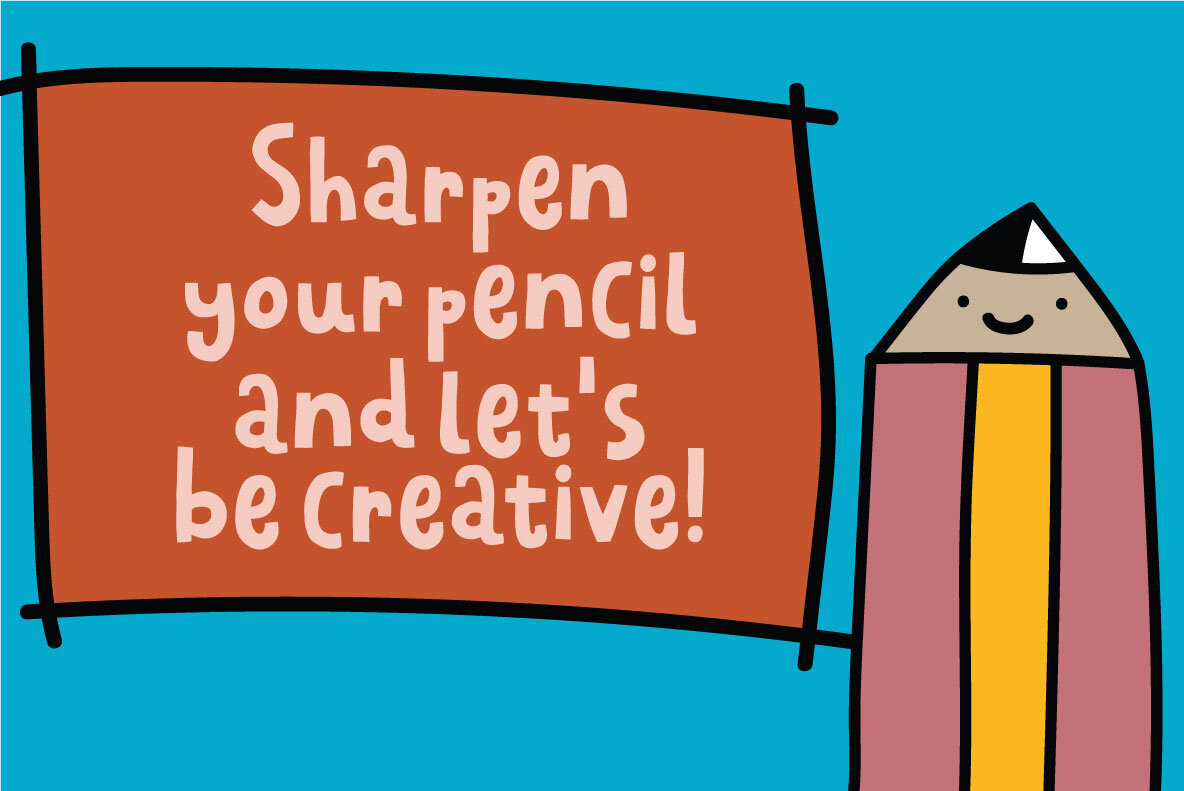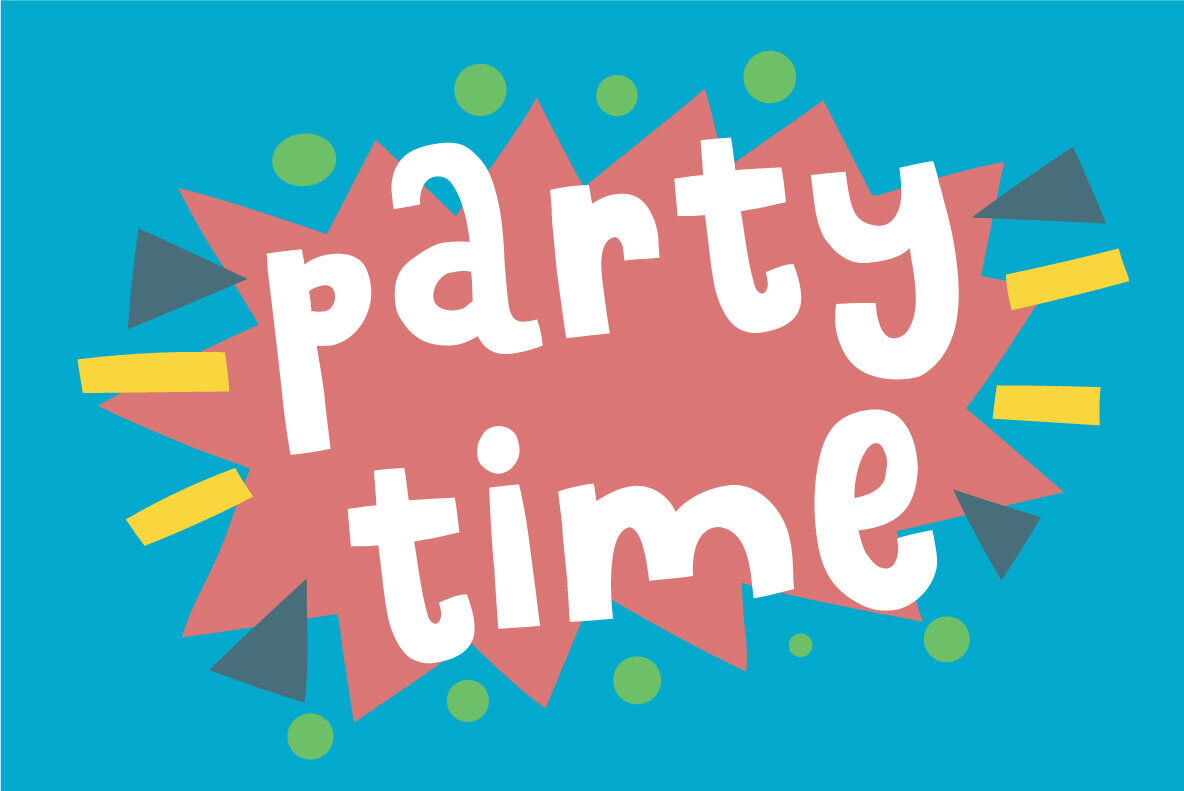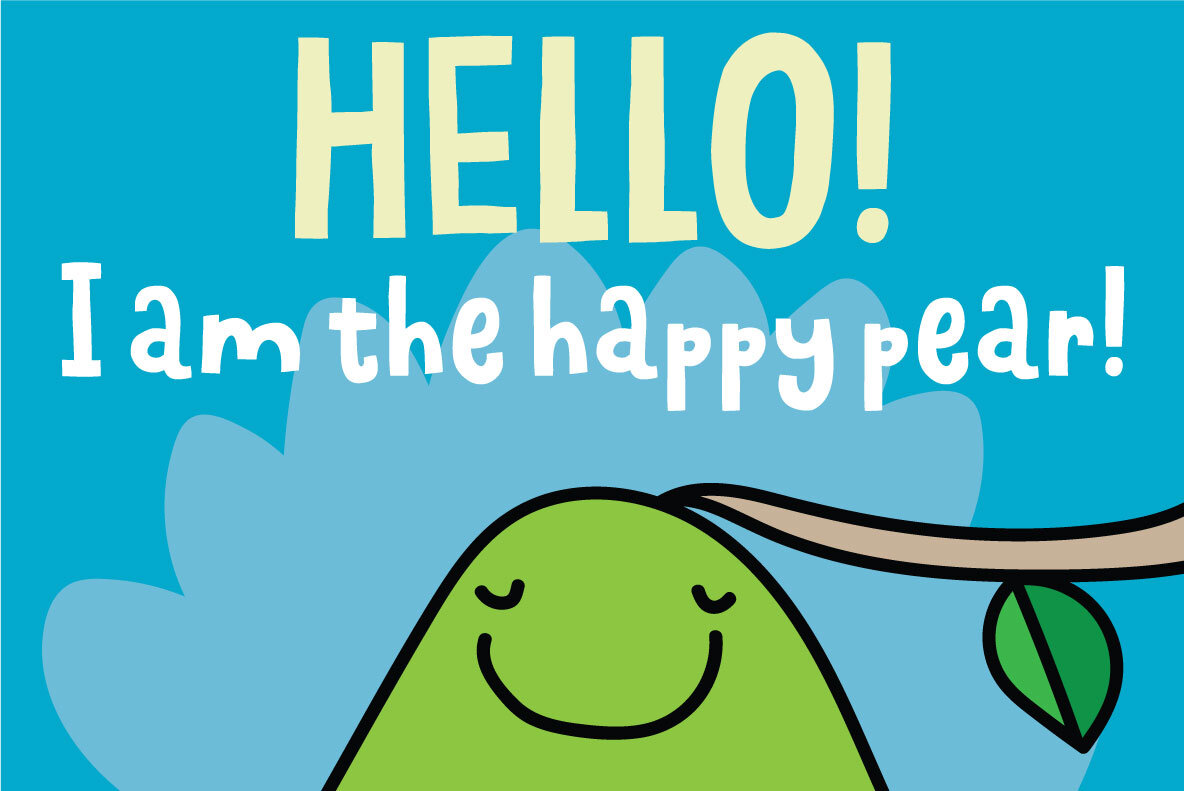
I am not a robot Font
The other day I had to login to a page several times, and as security I had to check the "I am not a robot" box. Actually, I think I did a login at that particular page like 30 times that day...and in the end I was thinking "Come on, you should know by now that I am not a robot" And even though I thought it was a repetitious hassle I figured that I needed to name a font "I am not a robot" - and not a robotic-like one, but a sweet and funny cartoonish one! :)